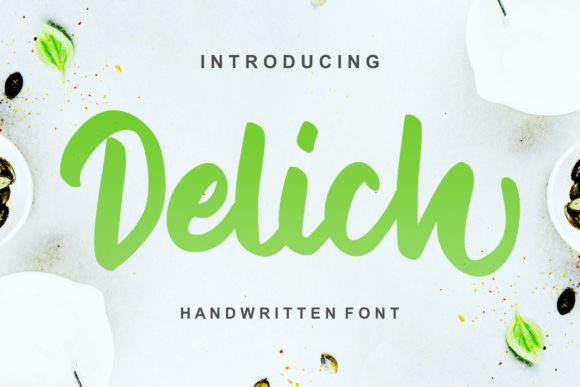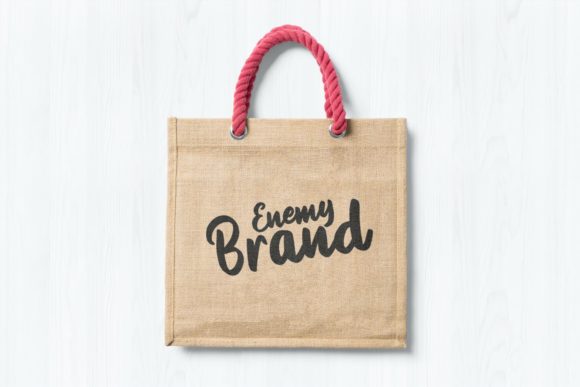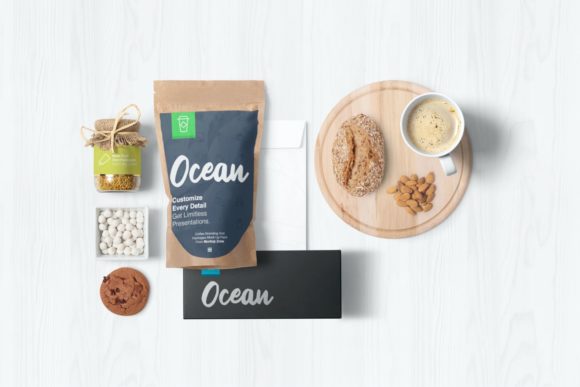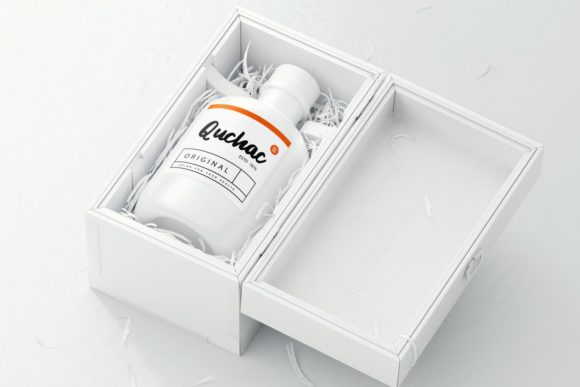
Delich Font
About Delich Font
Delich is a lovely and modern script font with welcoming character. It is perfectly suited for a wide variety of projects!